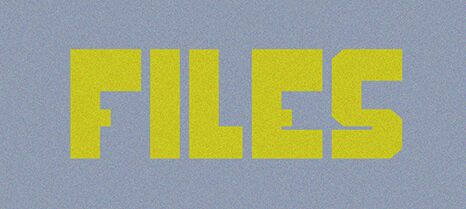
Files Extravagant Regular
Files Extravagant font is a bold display typeface by Vladimir Nikolic with an unmistakable design approach. Geometric shapes are the base foundation for all characters which are finished with industrial features. Visual strength is at its core, representing a modernist assertive presence in any scene the font appears.
Marketing items, techno style posters, advertisements, and futuristic publications would welcome the beauty of this free techno display font as primary heading typeface. Retail display ads in digital or print media will benefit from its impact in its own way – on billboards as well or catalogs and magazines.